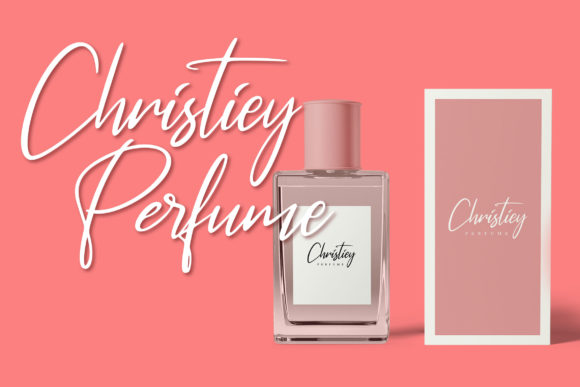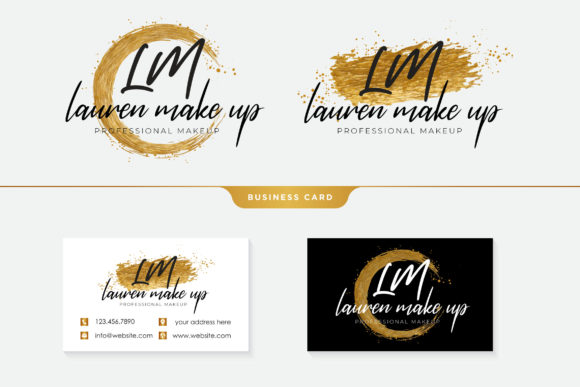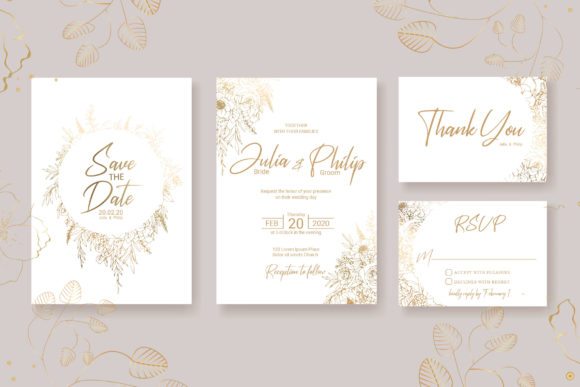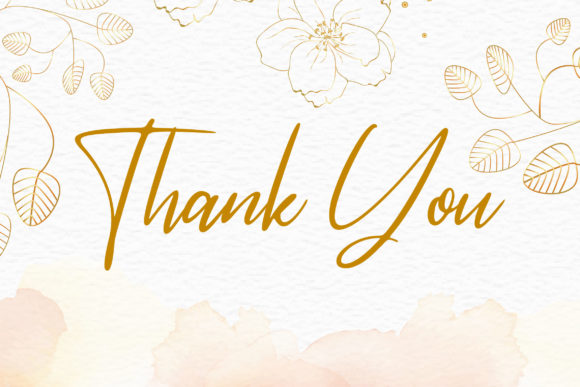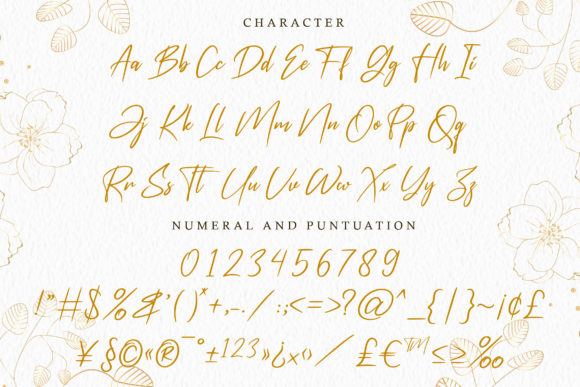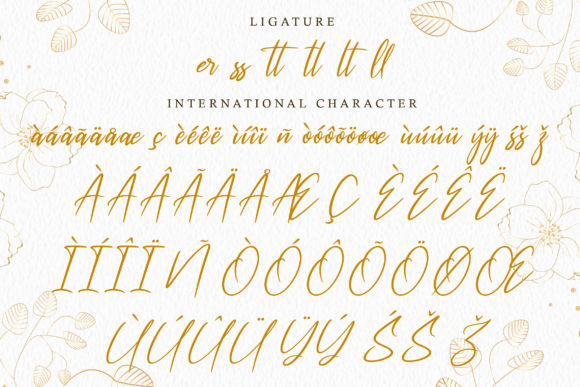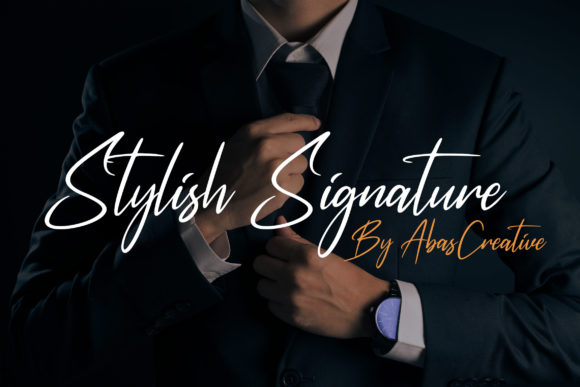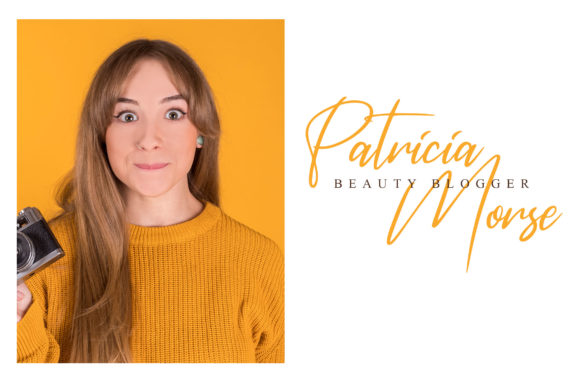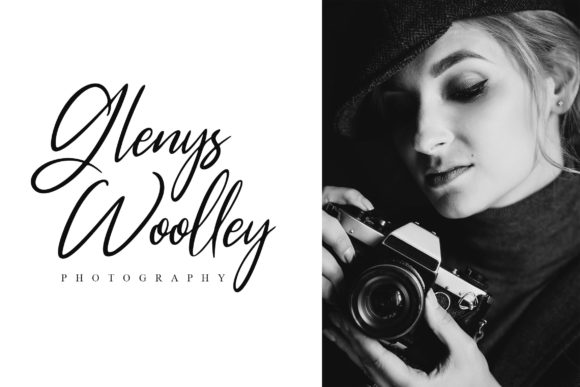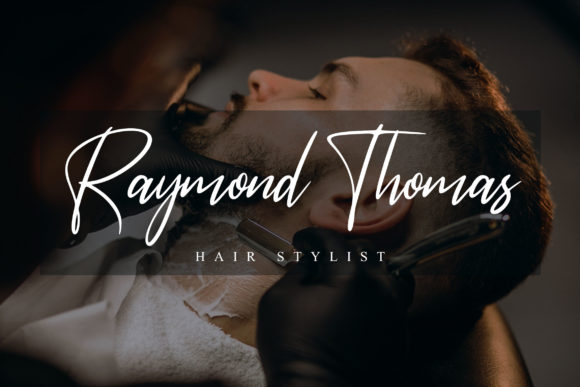
Rossatelly Font
About Rossatelly Font
Rossatelly is a gorgeous and relaxed handwritten font. It maintains its classy calligraphic influences while feeling contemporary and fresh. Fall in love with it and bring your projects to the highest levels!